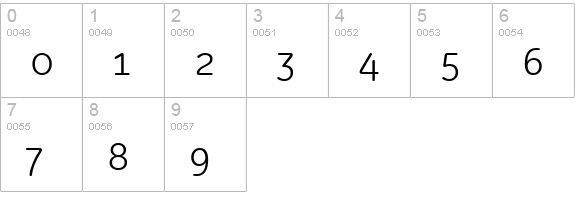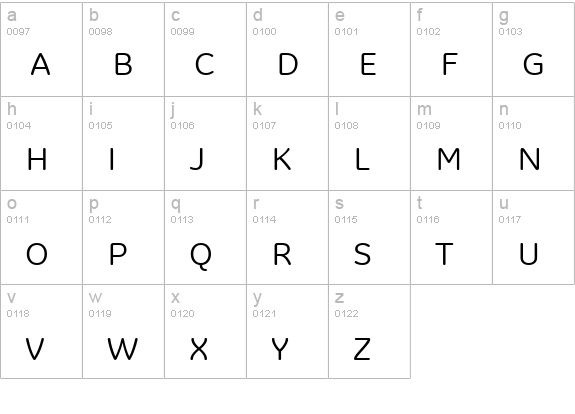
GE Inspira Small Caps Font Details
GE Inspira Small Caps font is a modern and versatile typeface that exudes sophistication and elegance. Its clean lines and sharp edges make it perfect for various design projects, from branding to editorial layouts. The small caps style adds a touch of formality and professionalism to any text, making it ideal for corporate communications and official documents. What sets GE Inspira Small Caps font apart is not only its sleek design but also the fact that it is available for free download at FontsMarket.com. This means that you can easily access this high-quality font without any cost, making it a valuable addition to your font collection. Whether you're working on a business presentation, a marketing campaign, or a personal project, GE Inspira Small Caps font is sure to elevate your design with its timeless appeal and effortless style.